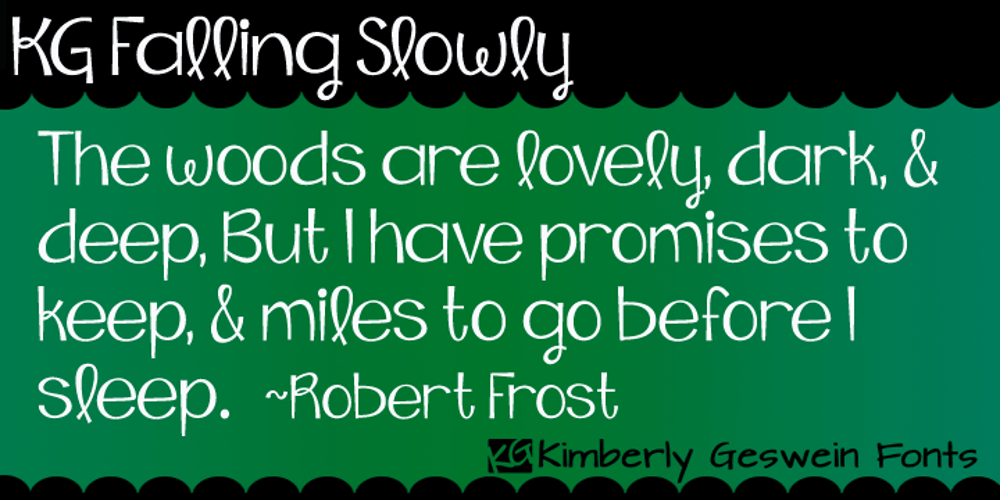
KG Falling Slowly Font Family was designed by Kimberly Geswein and published by Kimberly Geswein. KG Falling Slowly contains 1 styles and family package options. This is a hand-drawn font with unique quirks like the loopy lowercase l that make it perfect for anything fun and happy.